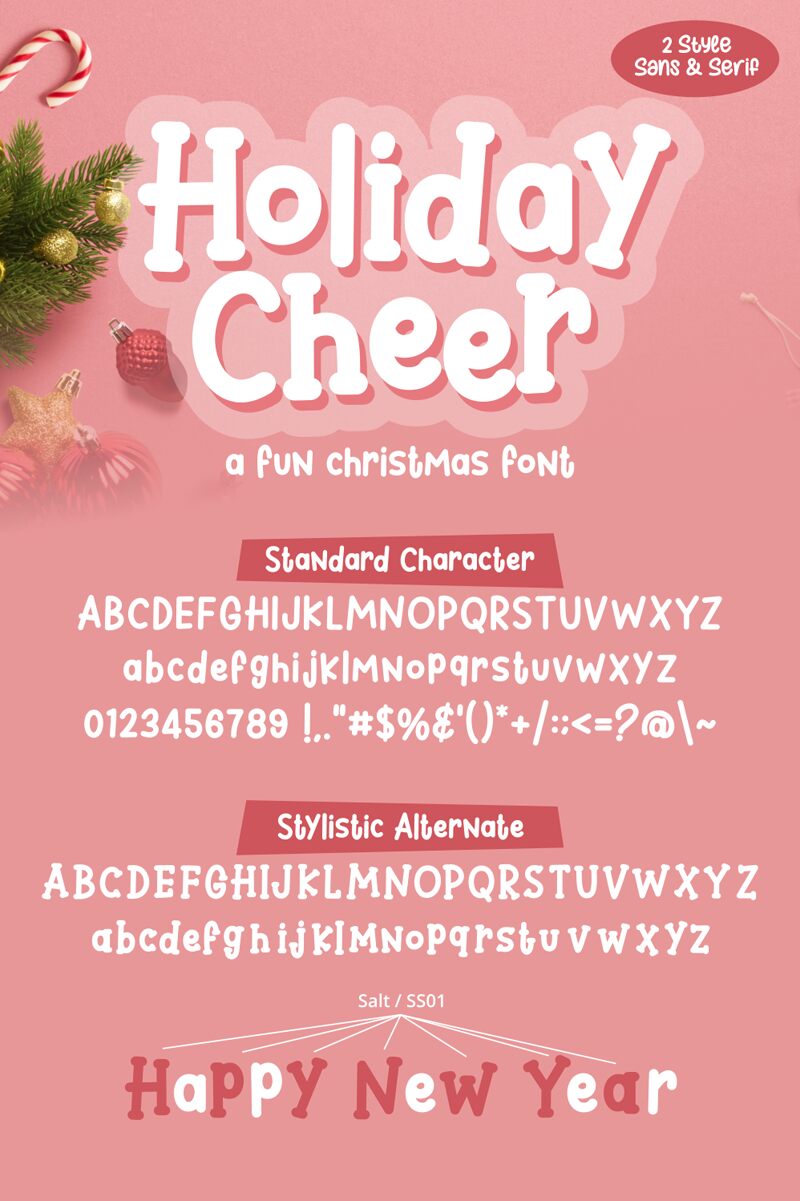
Holiday Cheer
Holiday Cheer is a whimsical display font designed by Mabhal Studio. With its semi-bold weight and cartoon style, this font is perfect for adding a touch of playfulness to any project. Use it to create eye-catching headlines for holiday-themed designs, greeting cards, invitations, or social media posts. Its fun and festive vibe makes it suitable for creating branding materials for children's products such as toys or games. The versatility of Holiday Cheer makes it an excellent choice for any project that requires a unique and playful touch. Get into the holiday spirit with Holiday Cheer!